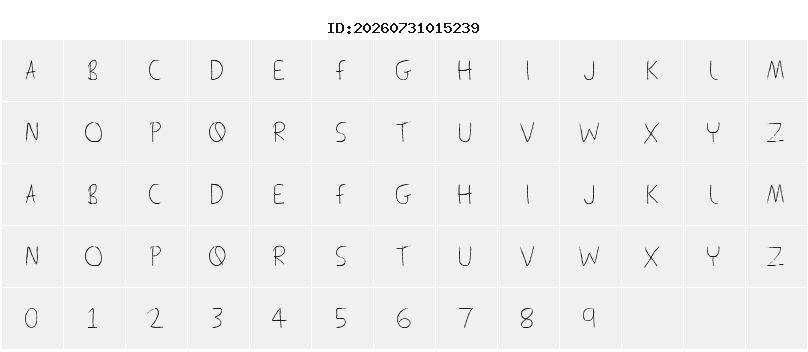
Living Dead Girl.ttf is a modern, elegant sans-serif font designed for ultimate readability and visual harmony. Perfect for branding, headlines, web design, and print materials.